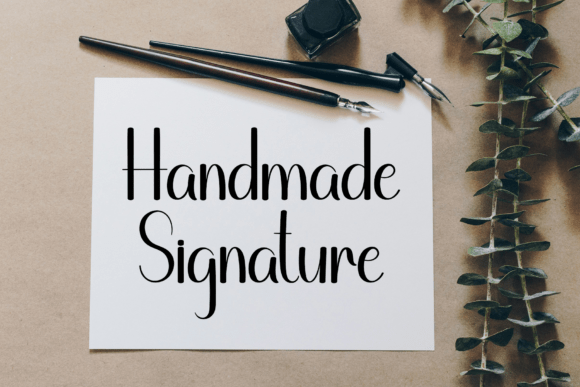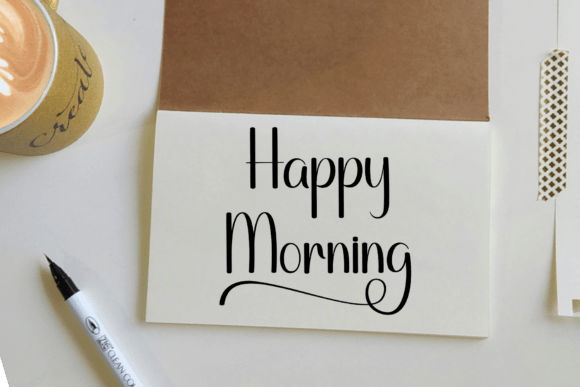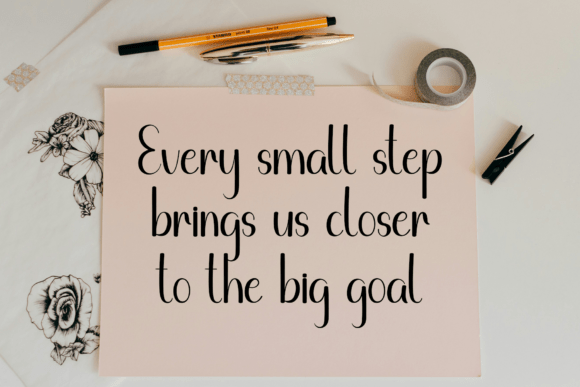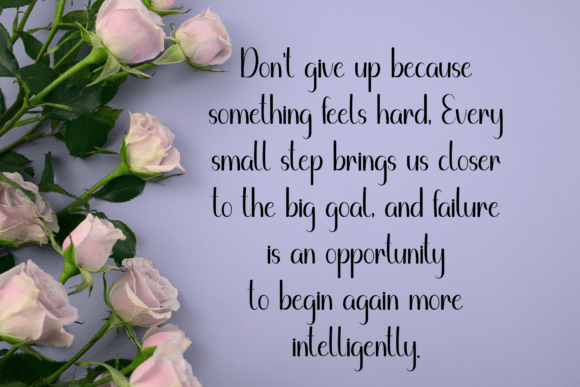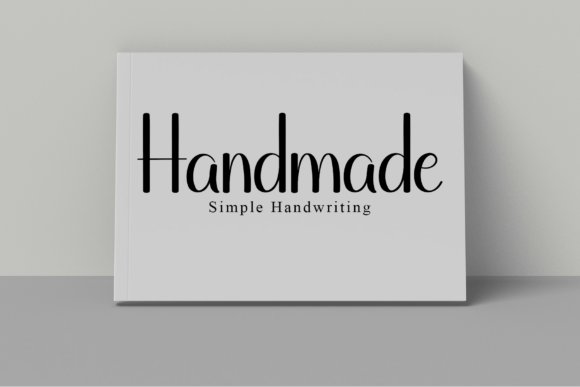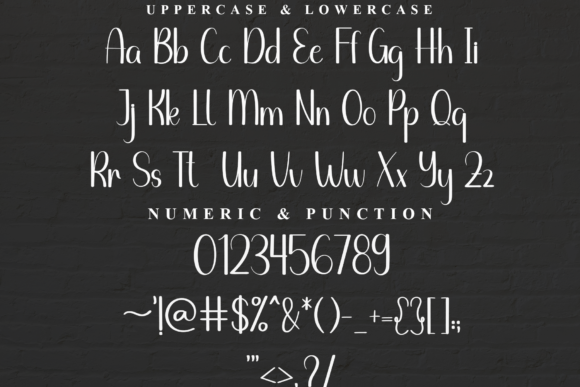
Dreaming Font: The Perfect Choice for Creative and Personal Projects
Are you looking for a font that can add a touch of warmth and friendliness to your designs? Look no further than the Dreaming Font. This casual and creative font is perfect for personal projects, invitations, social media graphics, and any other design that needs a relaxed and approachable feel.
The Characteristics of Dreaming Font
The Dreaming Font features round, playful strokes that create a charming and inviting aesthetic. Its hand-drawn look adds a fun and unique touch to any design, making it perfect for crafters and designers who want to add a personal touch to their work. The font’s relaxed and approachable feel makes it ideal for designs that need to convey a sense of warmth and friendliness.
What Makes Dreaming Font Special?
One of the things that sets the Dreaming Font apart is its standard PUA Encoded glyphs. This means that the font is equipped with a wide range of characters and symbols that can be used in various design applications. Whether you’re working in Adobe Photoshop, Corel, Adobe Illustrator, Canva, or any other design software, the Dreaming Font is compatible and easy to use.
Perfect for Personal Projects and Invitations
The Dreaming Font is perfect for personal projects, such as crafting and scrapbooking. Its playful and creative aesthetic adds a fun and unique touch to any design, making it ideal for DIY enthusiasts and crafters. The font is also great for creating invitations, whether it’s for a birthday party, wedding, or baby shower. The font’s warm and inviting feel makes it perfect for designs that need to convey a sense of excitement and joy.
Great for Social Media Graphics
In today’s digital age, social media graphics are an essential part of any designer’s toolkit. The Dreaming Font is perfect for creating engaging and eye-catching social media graphics, such as Facebook posts, Instagram stories, and Twitter headers. The font’s playful and creative aesthetic is sure to grab the attention of your followers and add a touch of personality to your designs.
Tips for Using the Dreaming Font
Here are a few tips for using the Dreaming Font in your designs:
• Use the font in combination with other playful and creative fonts to add depth and interest to your designs.
• Experiment with different colors and textures to add a unique touch to your designs.
• Use the font’s standard PUA Encoded glyphs to add special characters and symbols to your designs.
• Don’t be afraid to get creative and try new things – the Dreaming Font is perfect for experimenting and pushing the boundaries of design.
The Dreaming Font is a versatile and creative font that is perfect for designers and crafters who want to add a touch of warmth and friendliness to their designs. Its playful and approachable aesthetic makes it ideal for personal projects, invitations, social media graphics, and any other design that needs a relaxed and inviting feel. With its standard PUA Encoded glyphs and compatibility with various design applications, the Dreaming Font is a great choice for anyone looking to add a unique and creative touch to their designs.